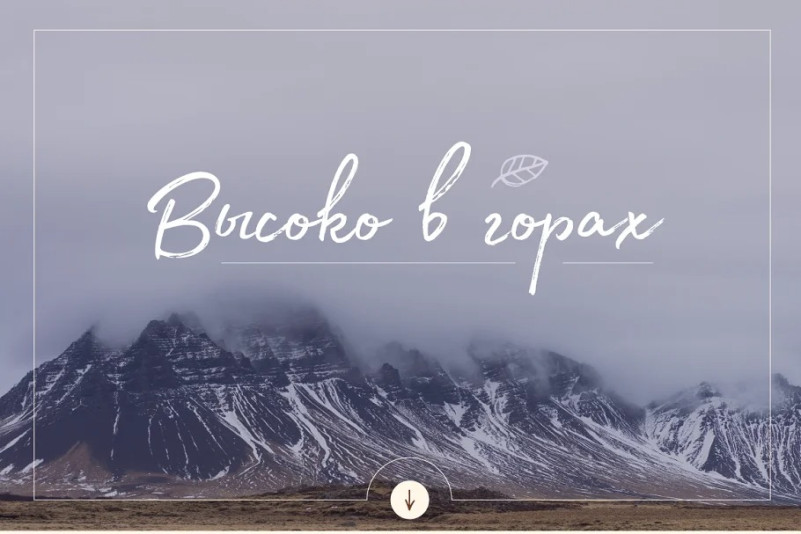
Madelyn Font
Madelyn Brush Font is handwritten made with a brush pen, this font will tear through your text with unmistakable energy, dynamic and spontaneous flow. Amiable and organic, it is perfect if you want to convey individuality and style. It’s written by calligraphy pen with casual dry strokes and a signature style.
A script containing upper and lowercase characters with pleasant low x-height and high ascender and descenders. Also numerals and a large range of punctuation and symbols. More than 100 ligatures are also available for upper and lowercase characters – double-letters which flow more naturally. Contextual alternates are part of the Open Type feature. Madelyn Doodles includes set of handmade ornaments, icons and swashes that can help you for your key visual.